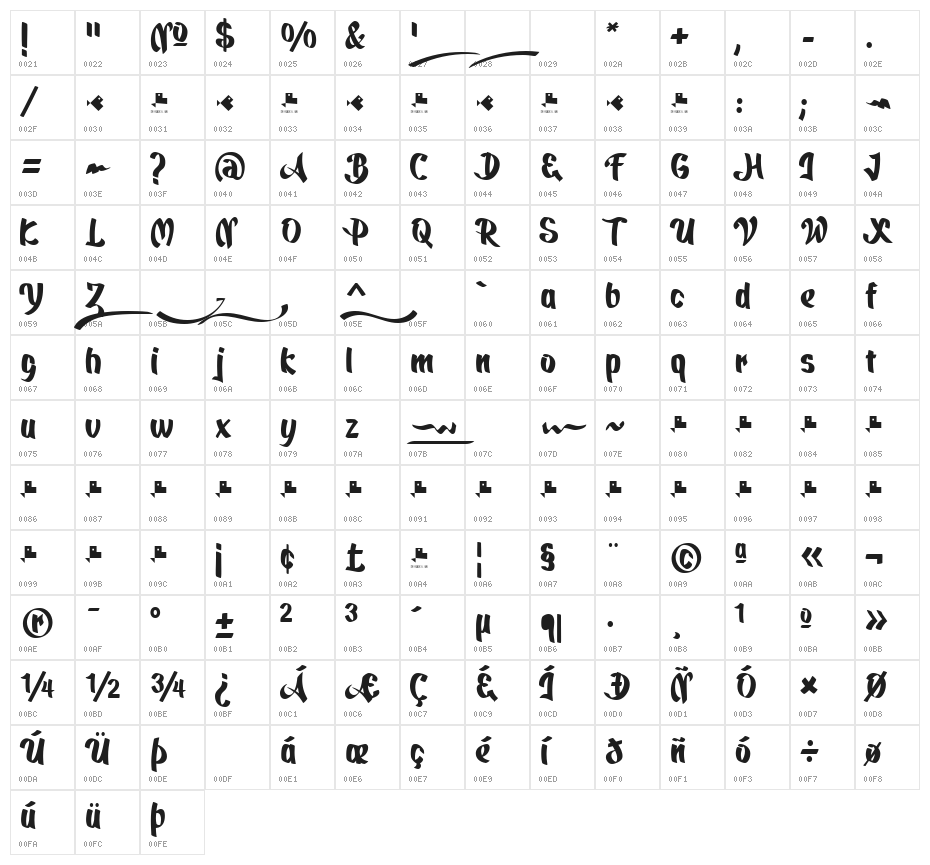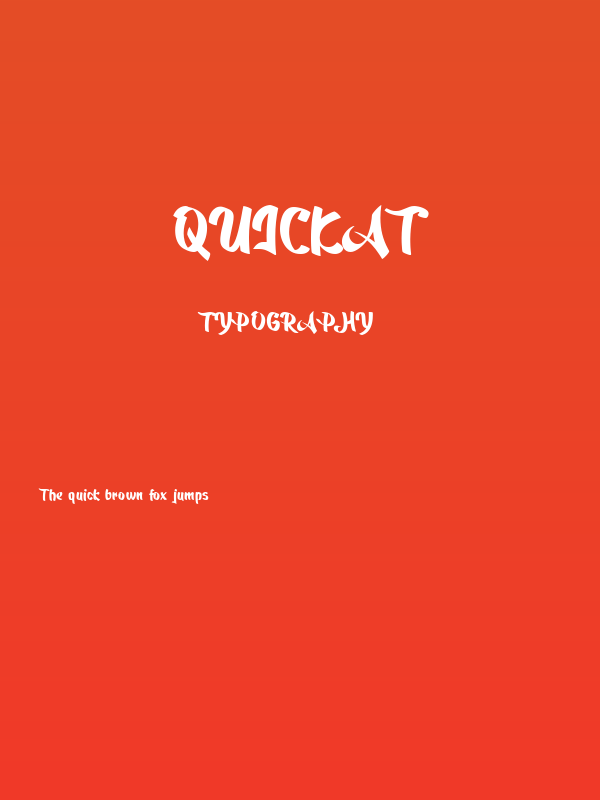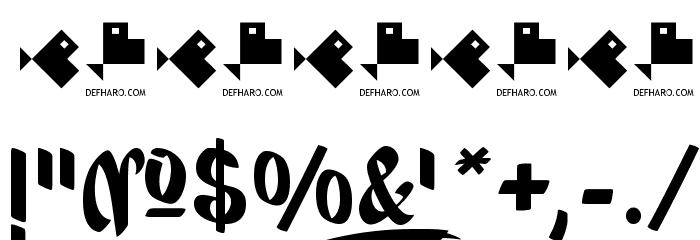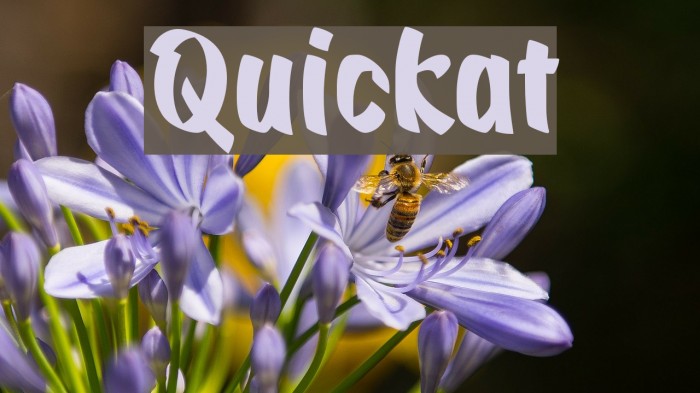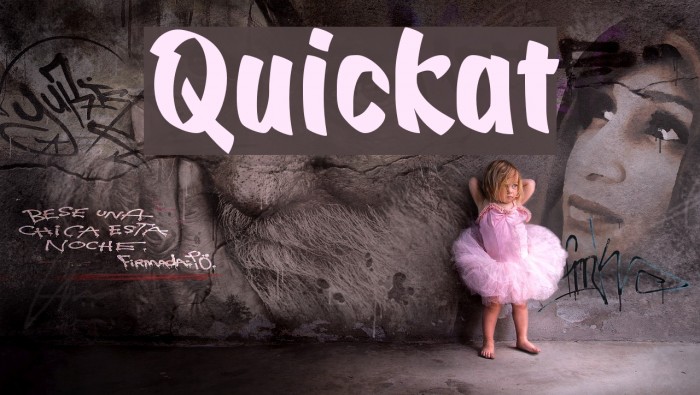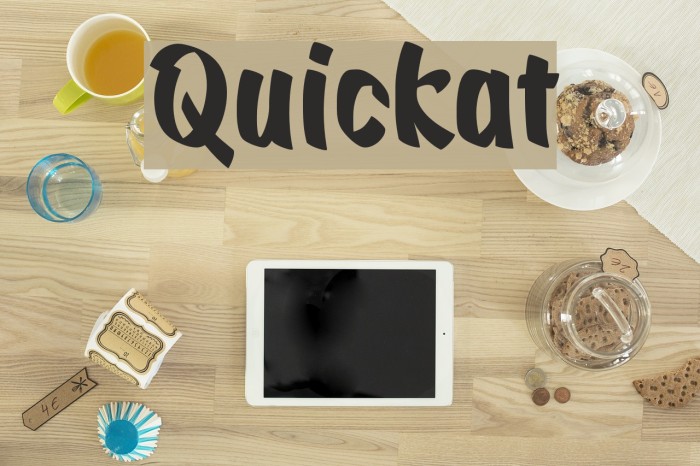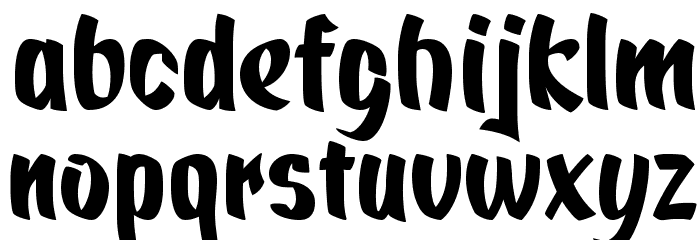
Quickat Font
Quickat Description
This font features a bold and dynamic style with a strong presence. The uppercase letters are characterized by their sweeping curves and sharp edges, giving them a dramatic and artistic flair. The lowercase letters maintain a consistent boldness, with unique shapes that add to the font's distinctiveness. The numerals are equally bold, ensuring readability while maintaining the font's overall style. Special characters are creatively designed, adding to the font's versatility. This font is ideal for projects that require a strong visual impact and a touch of creativity.
| Proposed Projects | Ideal for branding, posters, headlines, and any design requiring a bold statement. |